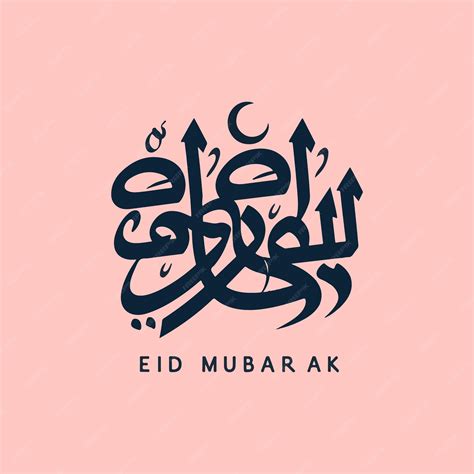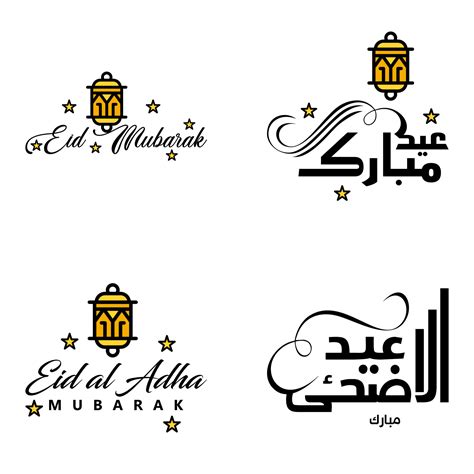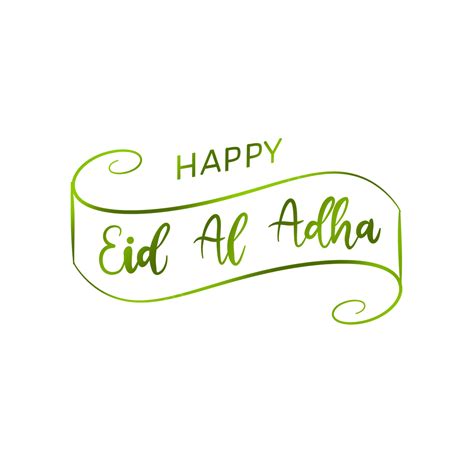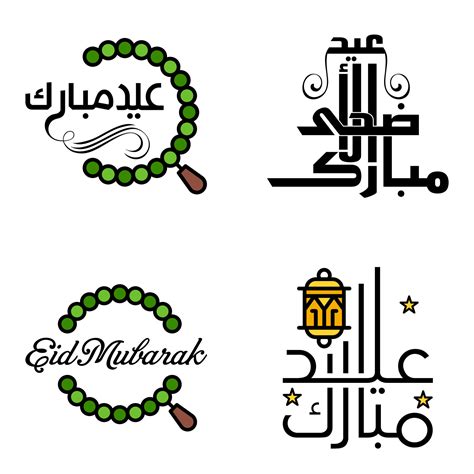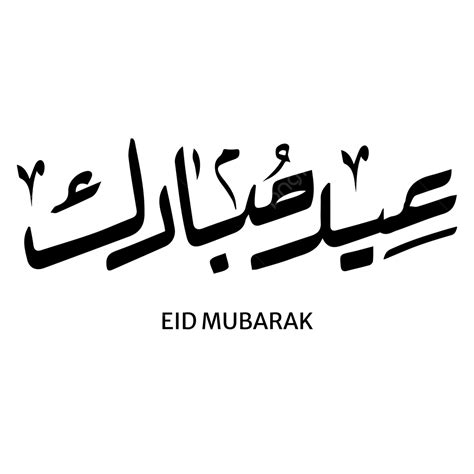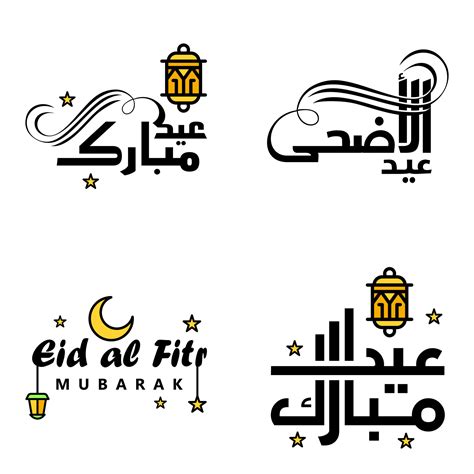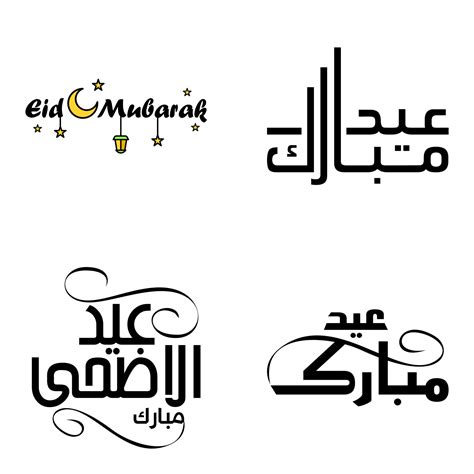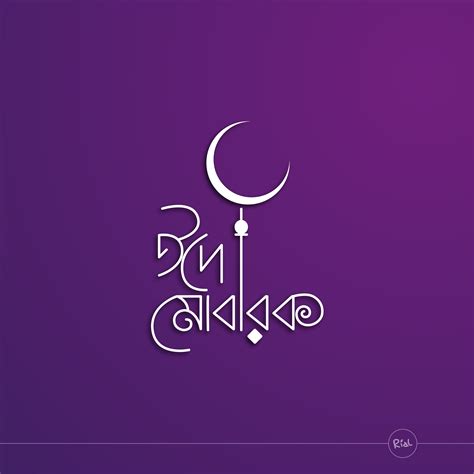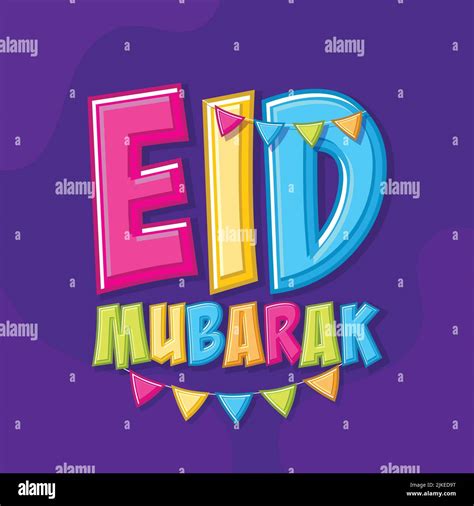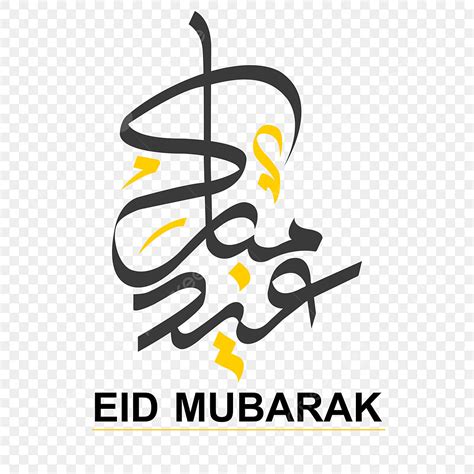
Selecting the perfective Font For Eid Mubarak is a crucial stride in preparing your optic greetings for the holy jubilation. Whether you are designing social medium graphics, personal greeting card, or professional posters, the composition you choose sets the mood for the total plan. Eid al-Fitr and Eid al-Adha are multiplication of joy, musing, and community, and the correct esthetic can help transmit these sentiments efficaciously. By carefully take readability, ethnic signification, and artistic dash, you can ensure your substance stand out while rest respectful to the traditions associate with this auspicious occasion.
Understanding Typography for Festive Occasions
Composition is more than just selecting letter; it is about optical storytelling. When look for the best Font For Eid Mubarak, you should reckon the balance between modernistic esthetic and traditional inheritance. Some designers prefer calligraphical scripts to honor historical Islamic art, while others incline toward light, sans-serif fonts to reach a contemporary hearing on digital platform.
Key Design Considerations
- Readability: Ensure the textbook is readable, particularly on mobile device.
- Cultural Relevance: Consider typeface that mimic the flowing of Arabic chirography or geometric shape.
- Pairing: Always pair a decorative font with a simple, clear subaltern font.
- Color Integration: Choose typeface that contrast well with your ground, such as au on dark green or deep blue.
Styles to Explore
There are several categories of font that work exceptionally easily for holiday greetings. Realize these styles will help you narrow down your choice when make content for Eid.
Traditional Calligraphic Styles
These fount describe brainchild from graeco-roman Islamic chirography. They are elegant, sleek, and oftentimes experience handwritten. They are gross for formal invitation or high-end societal media posts where you desire to provoke a sensation of inheritance and sophistication.
Modern Sans-Serif Styles
If your goal is to make minimalist, clear, and high-impact plan, sans-serif fonts are your best acquaintance. They act well for quick-scrolling audiences who need to get the substance of "Eid Mubarak" in a disconnected second.
Decorative Display Fonts
These baptistery are oft sheer and feature unique flourish. They are designed to be the "hero" of the layout. Use these meagerly for head to reap immediate attention to the greeting.
| Font Style | Best Used For | Vibe |
|---|---|---|
| Script/Calligraphic | Greeting Card | Traditional & Elegant |
| Sans-Serif | Digital Ads | Modern & Clean |
| Exhibit | Societal Media Posts | Bold & Festive |
💡 Line: Always prove your elect font across different blind sizes to ensure the characters do not overlap or turn distorted.
Enhancing Your Design with Hierarchy
Once you have decided on a Font For Eid Mubarak, you must focalize on visual hierarchy. The greeting should be the most prominent constituent on your canvas. If you are expend a very elaborate baptistry for the header, make sure your body schoolbook or extra information (like case escort or venue particular) utilize a much simpler, highly decipherable typeface. This prevents the looker from turn overwhelmed by too many conflicting ocular ingredient.
Contain the correct composition into your vacation preparations significantly lift the quality of your messaging. By equilibrise stylistic choices with pragmatic design principles like contrast, hierarchy, and legibility, you can create visually daze graphics that capture the flavor of the season. Remember that the ultimate finish is to carry your best compliments distinctly and warmly to your hearing, check that every ingredient of your design support that intent. With a serious-minded approach to selecting the perfect font for Eid Mubarak, your celebratory visuals will vibrate with beauty and sincerity throughout the festivities.